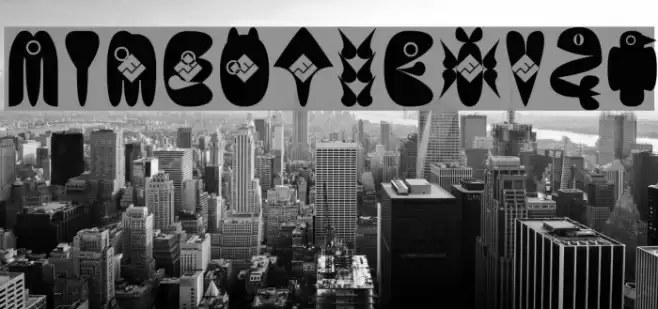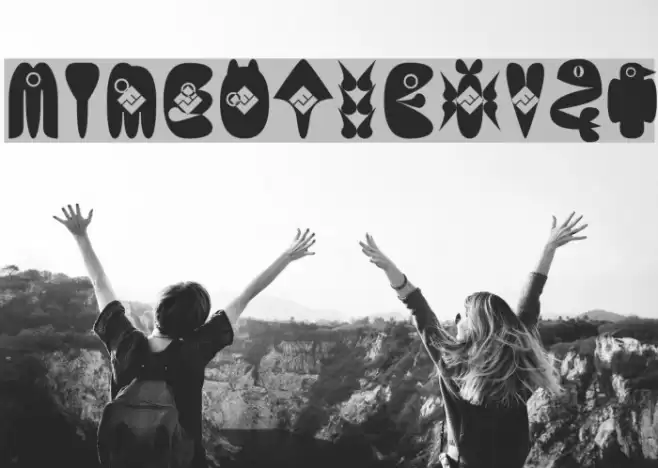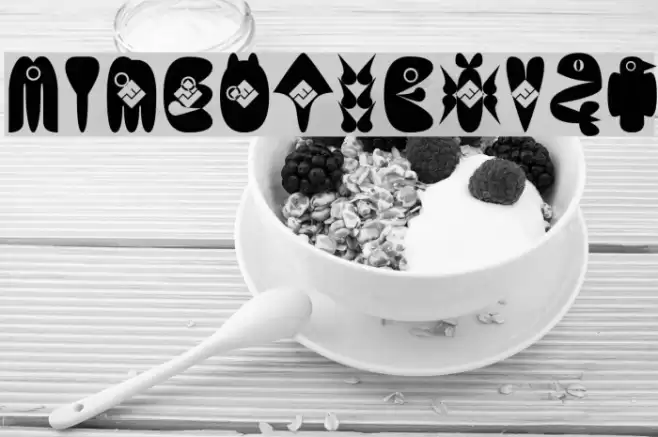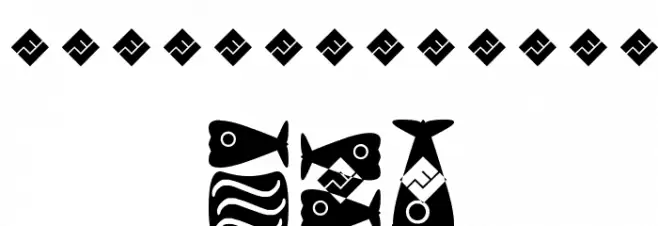
Koshka Font
Koshka Description
This font features a highly decorative and artistic style, incorporating elements that resemble tribal or indigenous art. Each character is uniquely crafted with intricate patterns and shapes, giving it a distinct and bold appearance. The font is characterized by its use of geometric forms and symmetrical designs, which are reminiscent of traditional motifs. The overall aesthetic is both striking and playful, making it suitable for creative and unconventional projects. The characters are not uniform in size or shape, adding to the font's eclectic and dynamic feel.
A decorative and artistic font with tribal-inspired geometric designs from 50s fonts.
- Proposed Projects: Ideal for use in cultural or artistic projects, such as posters, album covers, or event invitations that require a unique and eye-catching typeface.
- Use Case: Logos, Posters, Artistic projects